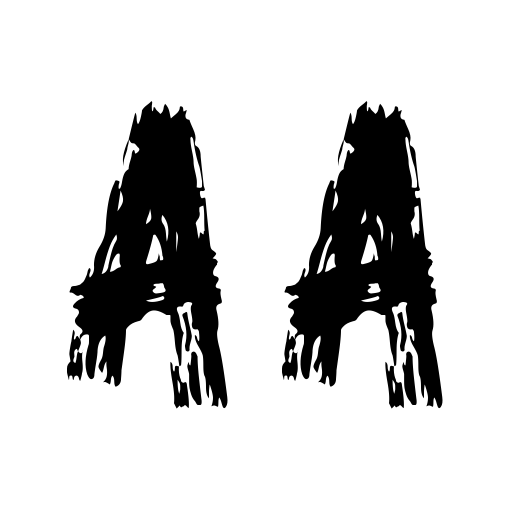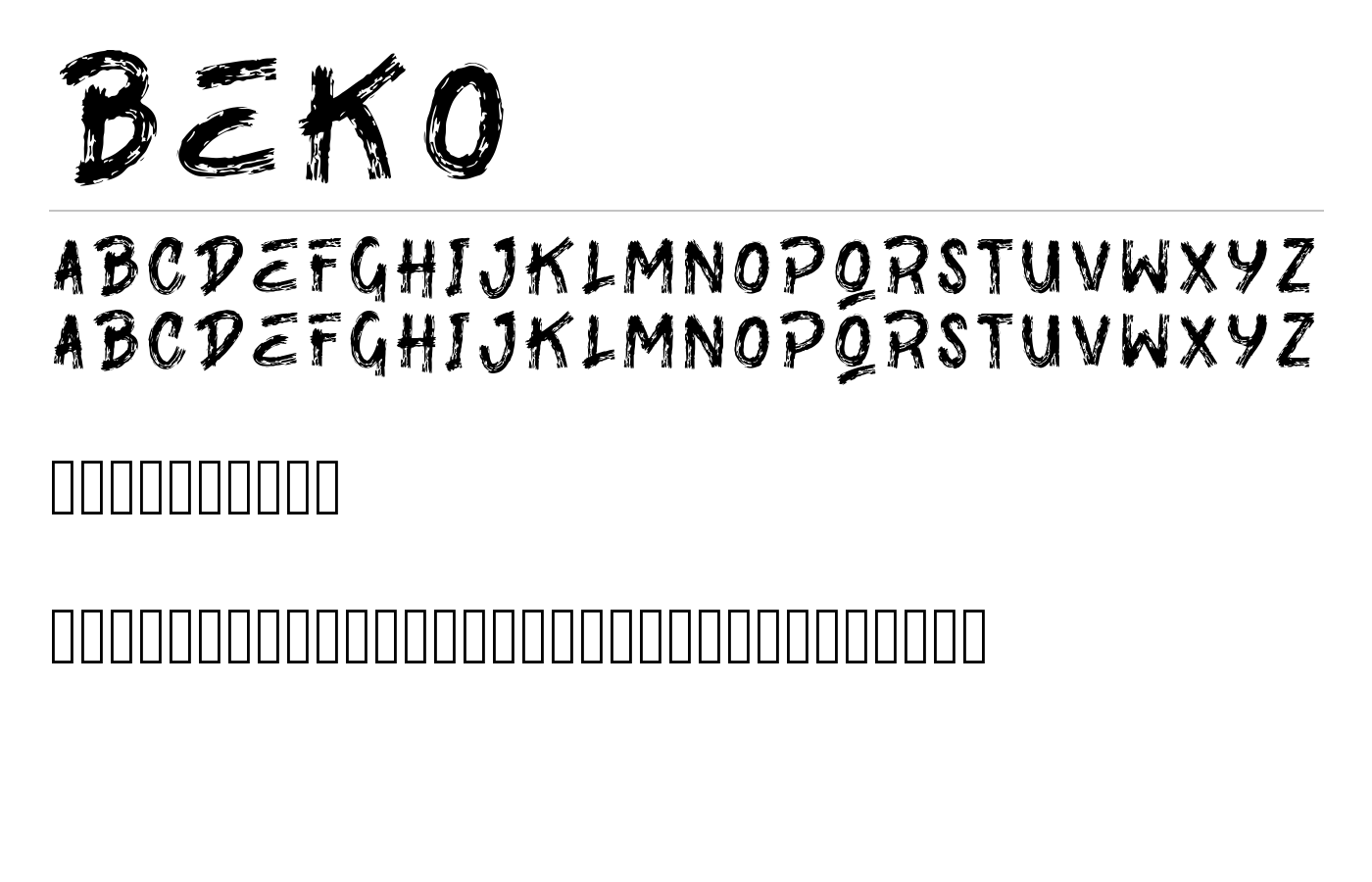
BEKO is a bold, hand-drawn sans serif font with a rough, textured stroke that gives it a dynamic and expressive feel. Its uneven edges and energetic brush-like appearance make it perfect for creative, casual, or playful designs, adding personality and a handcrafted vibe to headlines, posters, and branding projects. This font works well where a fun, artistic, and eye-catching style is desired.
BEKO Font